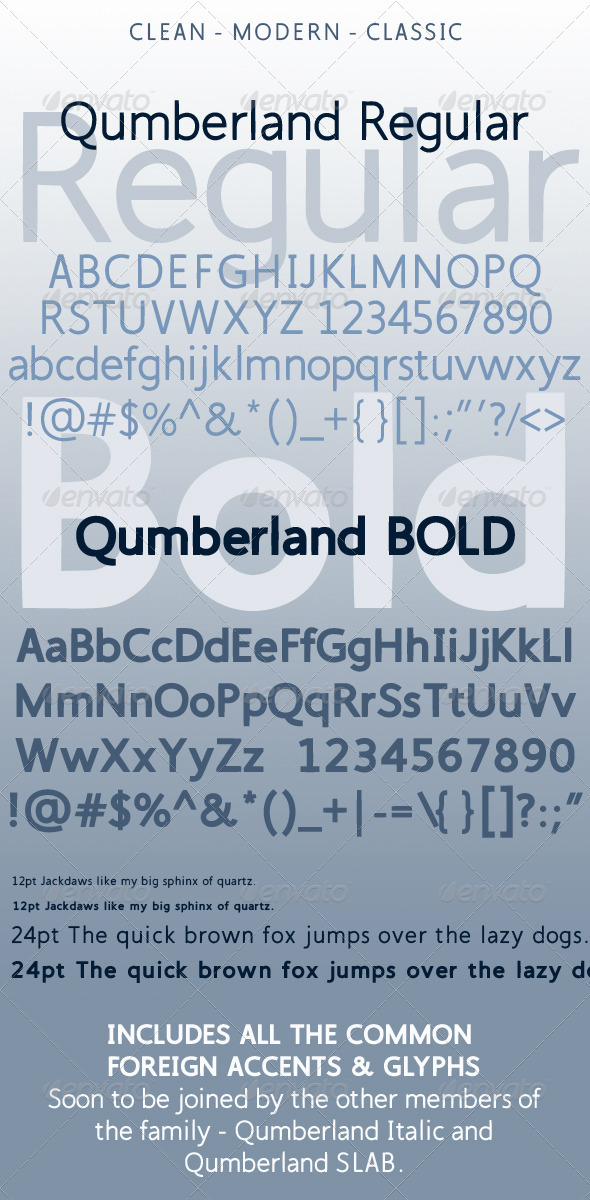
Exclusive to Graphic River, a modern and stylish font in Regular and Bold, designed to complement one another perfectly. Both ttf files include all the common foreign characters, Euro and Pound Sterling symbols and a full range of quote marks. Not suitable for very large text with extensive styling.